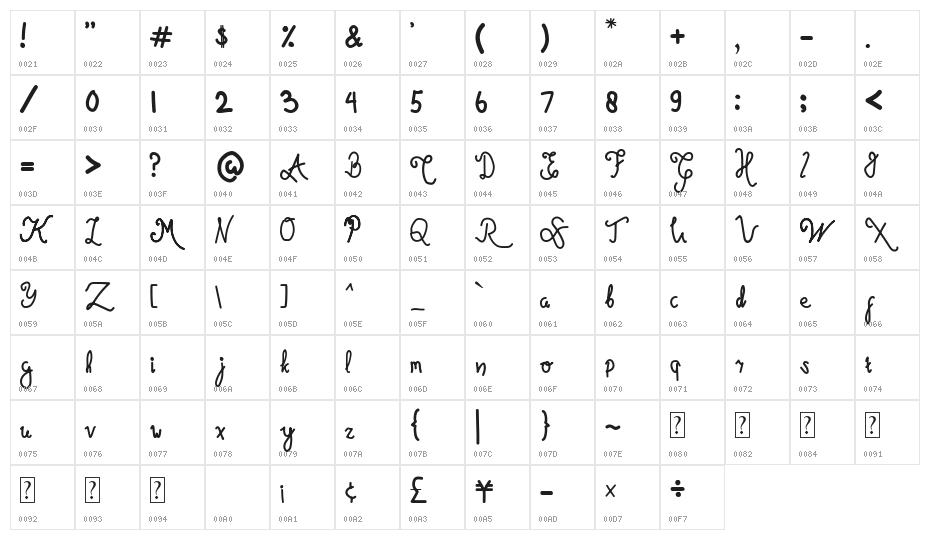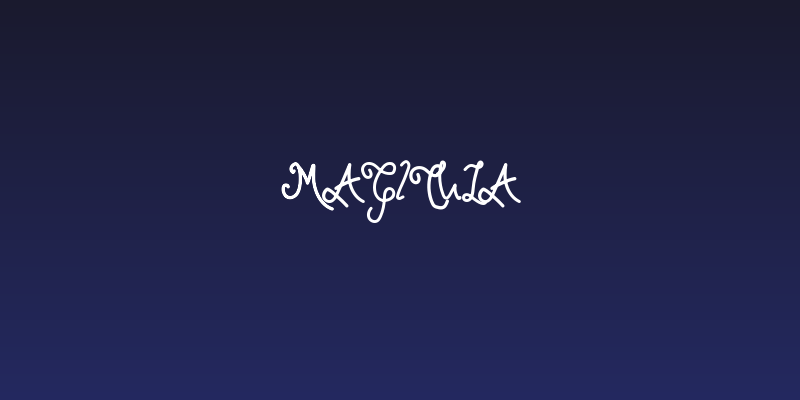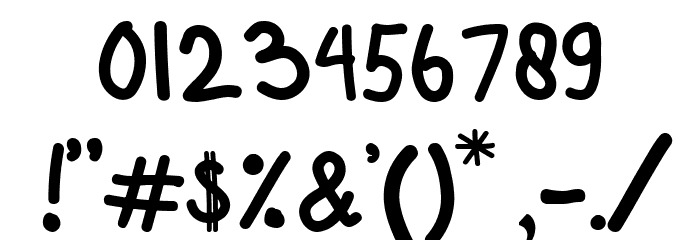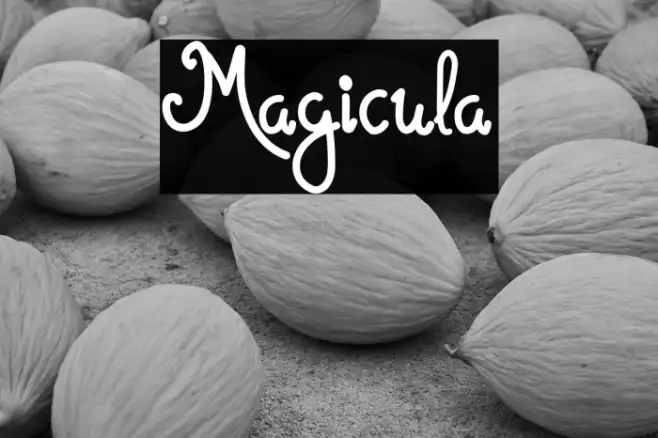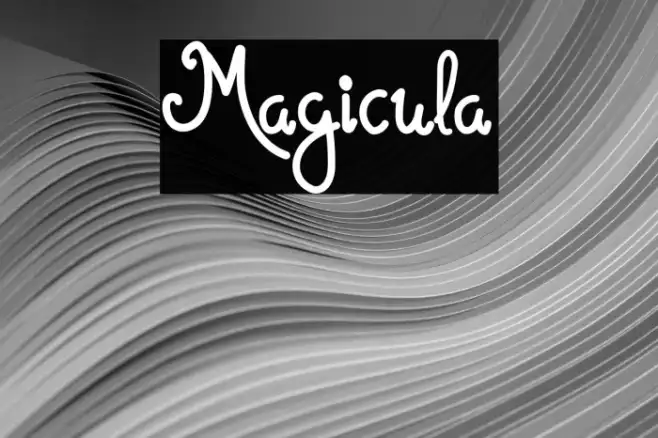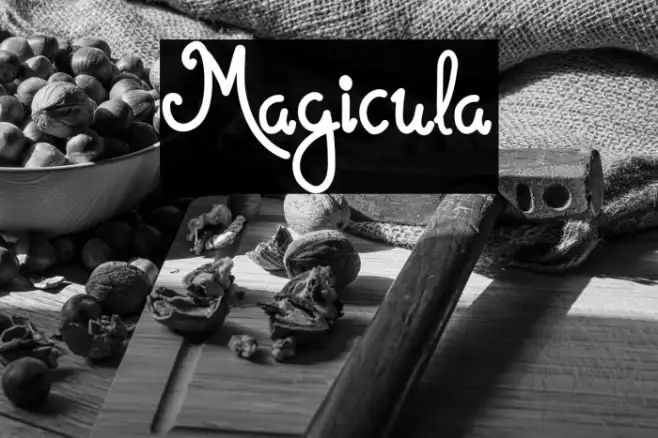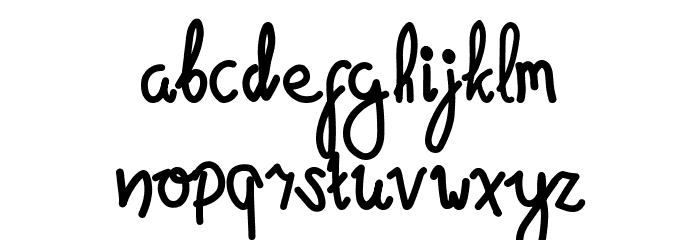
Magicula Font
Magicula Description
This font features a whimsical and playful script style, characterized by its flowing and interconnected letterforms. The uppercase letters are ornate with elaborate loops and swirls, giving it a decorative appearance. The lowercase letters maintain a more casual and approachable look, with some letters like 'g' and 'y' having distinctive tails that add to the font's charm. The numerals are bold and rounded, complementing the overall playful aesthetic. Special characters are creatively designed, maintaining the font's unique style. This font is ideal for projects that require a touch of elegance and creativity.
| Use Case | Logos, Invitations, Creative projects |
| Proposed Projects | Ideal for wedding invitations, greeting cards, branding, and creative design projects. |